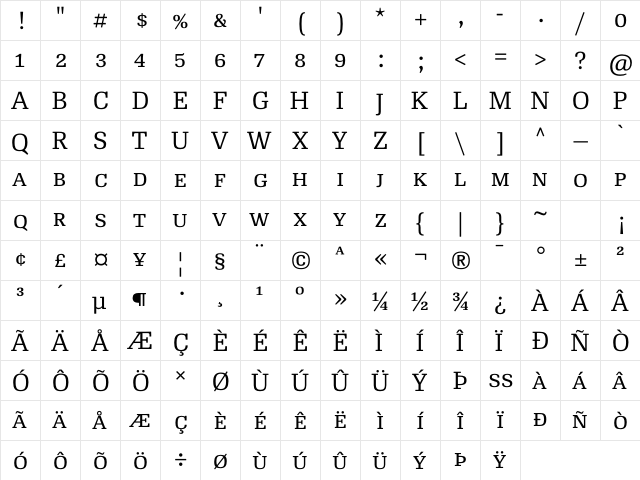
RePublic Book Regular SC
Design Context for RePublic Book Typeface
RePublic Book is a composed and adaptable typeface that performs quietly and consistently across a wide range of design contexts.
Pro Tip: Pair RePublic Book with a font of contrasting weight or personality to build a more expressive typographic hierarchy.